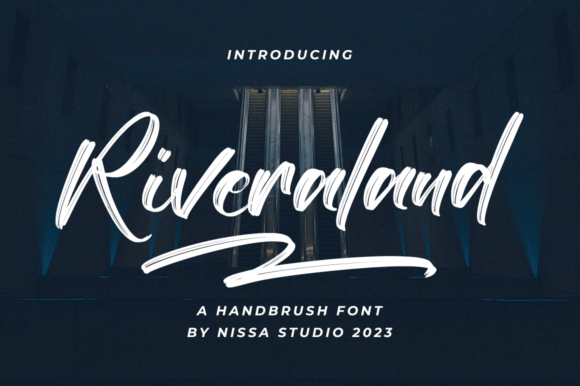
Introducing Riveraland Font, the ultimate choice for those seeking the best fonts for headlines! This beautifully crafted script font, created by the talented NissaStudio, is designed to make your headlines and logotype projects truly stand out. With its stunning brush handwritten style, Riveraland exudes a sense of boldness, confidence, and dynamism that will captivate your audience.
What sets Riveraland apart from other fonts is its ability to infuse nostalgic charm into your designs. Each letter is meticulously crafted to evoke a sense of vintage elegance, reminiscent of cherished memories. Imagine the impact it will have on your audience, instantly transporting them to a world of sentimental beauty.
One of the key features of Riveraland is its PUA encoding, allowing effortless access to a wide array of glyphs and swashes. This means that you can easily enhance and personalize your designs with unique and intricate details. Let your creativity flow as you effortlessly experiment with different combinations, making each creation truly one-of-a-kind.
Whether you're working on branding, advertising, or any creative project that demands attention, Riveraland is the font that will elevate your work to new heights. Its versatile nature allows it to seamlessly adapt to various styles and themes, ensuring that it remains a timeless choice for years to come.
With Riveraland, your headlines will command attention, leaving a lasting impact on your audience. From captivating logos to engaging social media posts, this font is your secret weapon to creating visually stunning and emotionally compelling content.
Transform your projects with Riveraland Font and witness the power it possesses to captivate hearts and minds. Whether you're a seasoned designer or just starting your creative journey, this font will become your trusted companion, inspiring your imagination and igniting your passion.